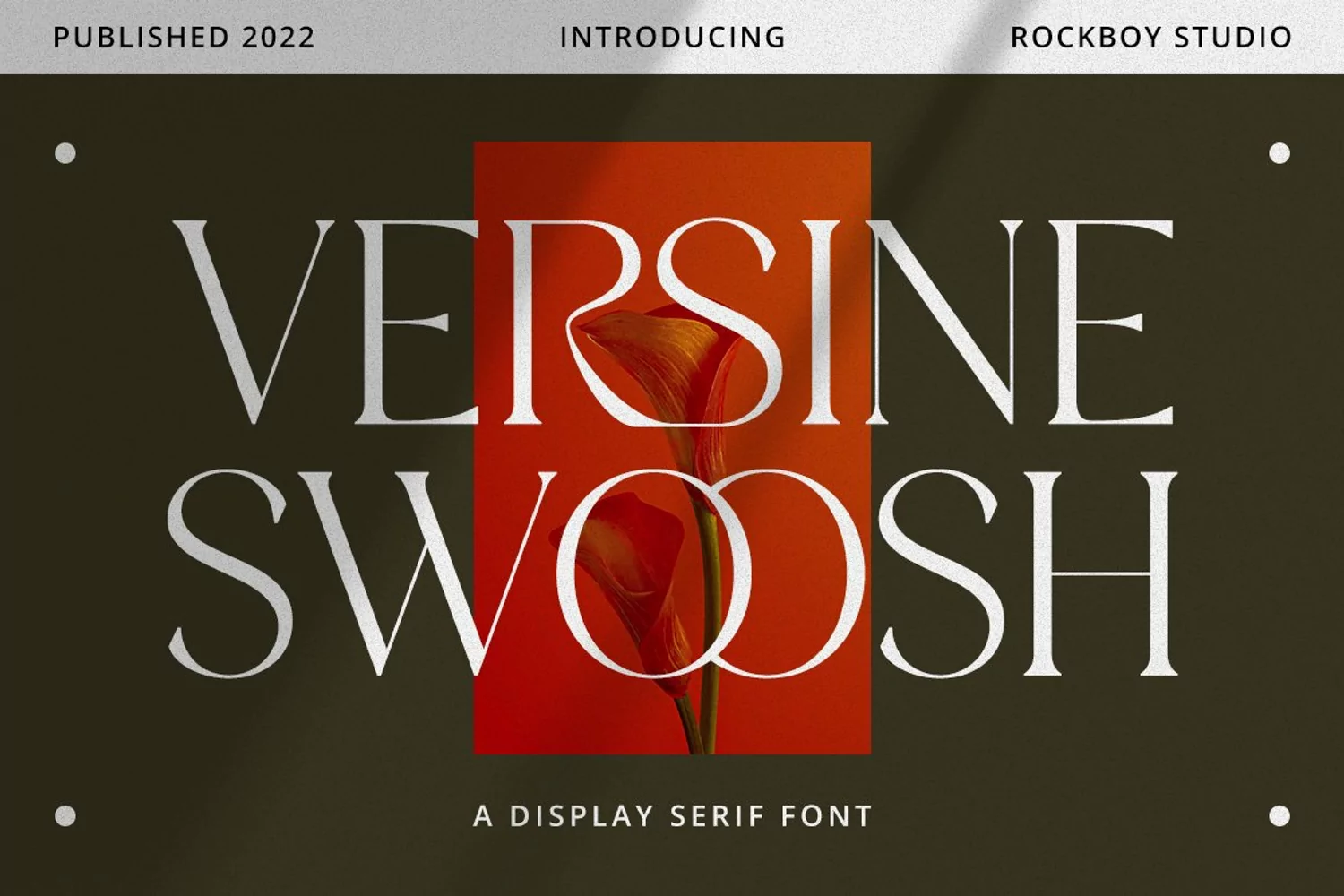
Versine Swoosh
Versine Swoosh is an elegant and distinct serif font. Suitable for a wide variety of designs due to its neat and simple style, this font has the potential to become your favorite go-to font, no matter the occasion!